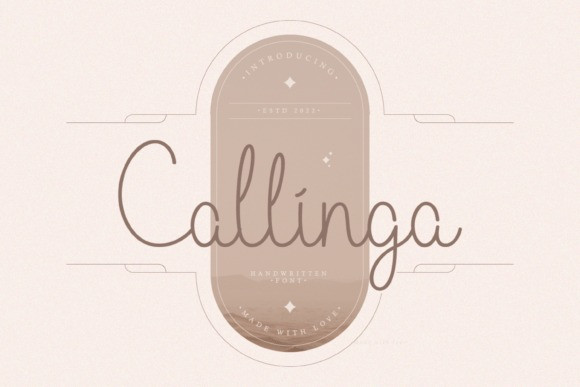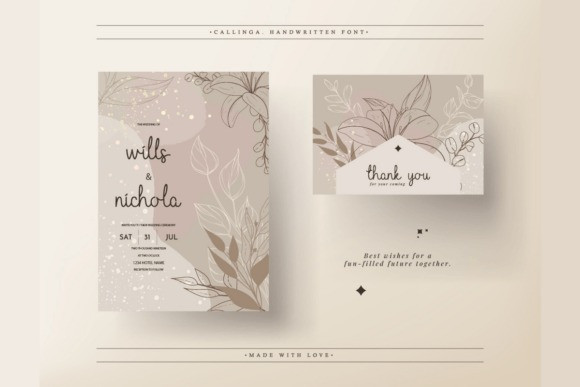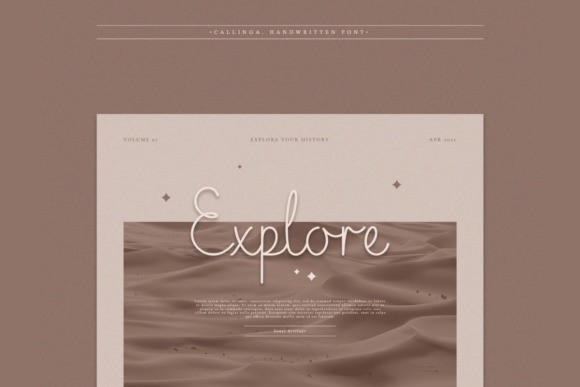
Callinga Font
Callinga is a gorgeous handwritten font made in 2022. Extraordinary and stylish, “Callinga” is more than an aesthetic script font. It is perfect for invitations, wedding projects, logos, table menus, greeting cards, lettering, posters, and other design projects that need stylish script taste.